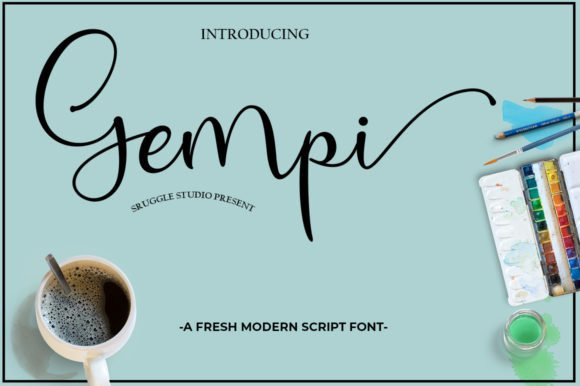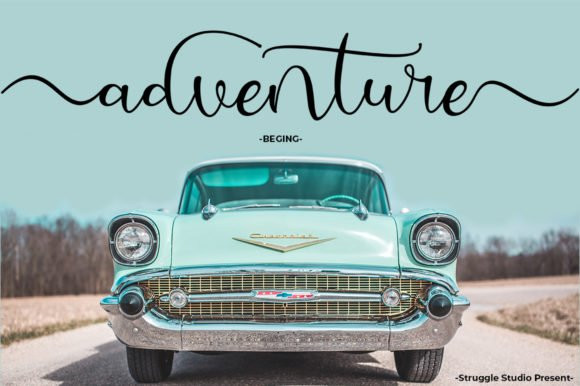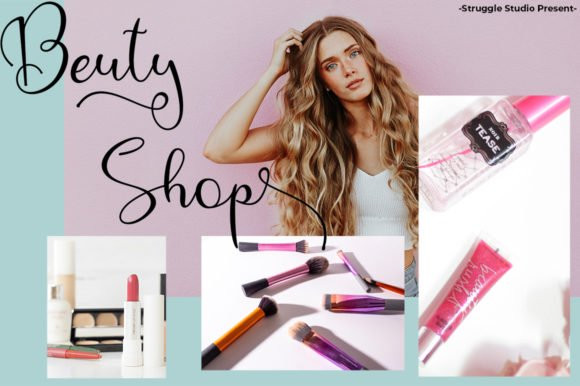
Gempi Font
Gempi is a modern and casual calligraphy font. It has beautiful swashes and it’s perfect for logos, wedding invitations, branding and much more!